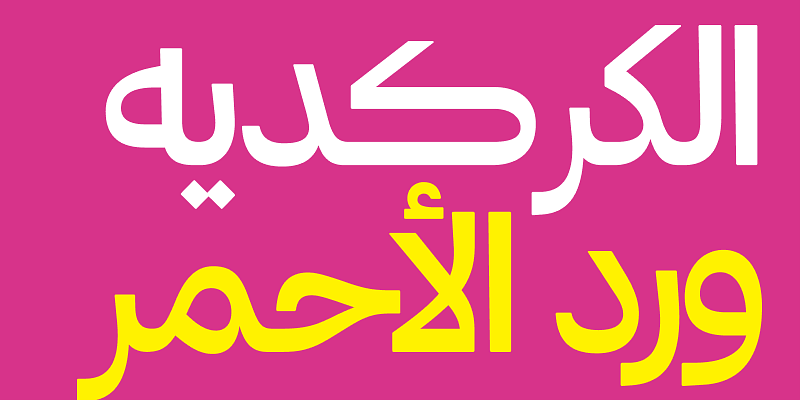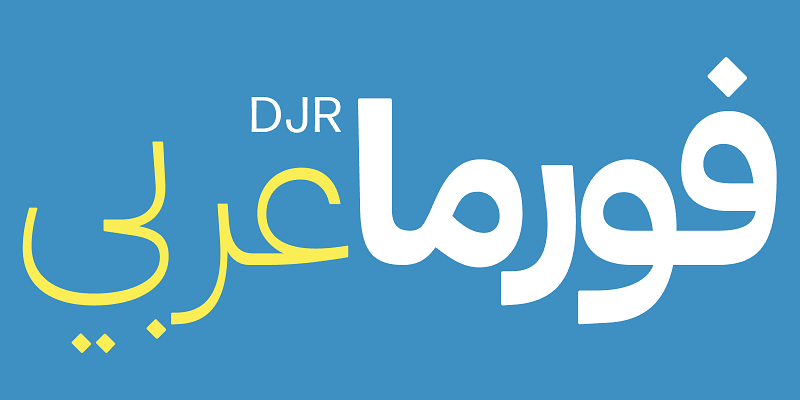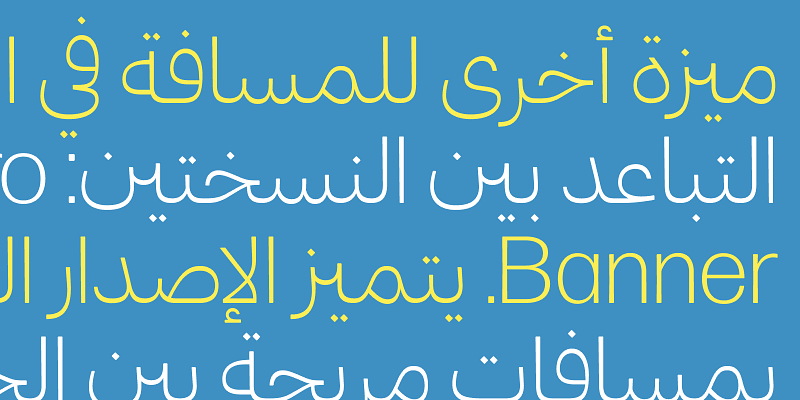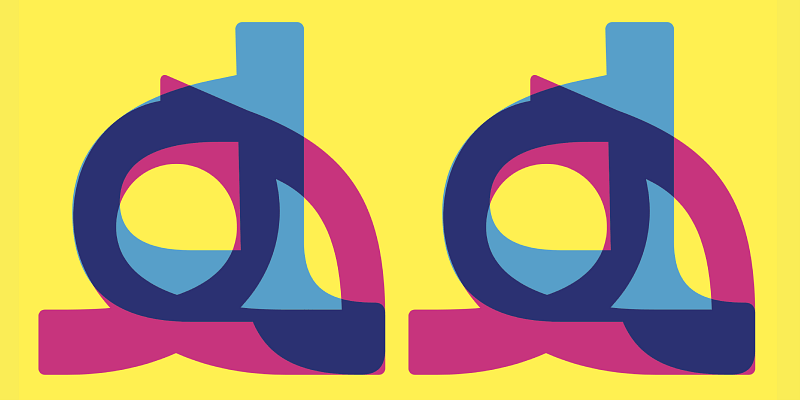
Forma DJR is a revival of Aldo Novarese’s late mid-century neo-grotesque for the Italian Nebiolo foundry. Working together with Roger Black and Indra Kupferschmid, David Jonathan Ross studied the original metal type and interpreted the design as a large family with optical sizes, rounded corners, and tapering stems. The weight range was later pushed to Hairline and Black extremes and reimagined as a variable designspace, with contributions from Ruggero Magrì.